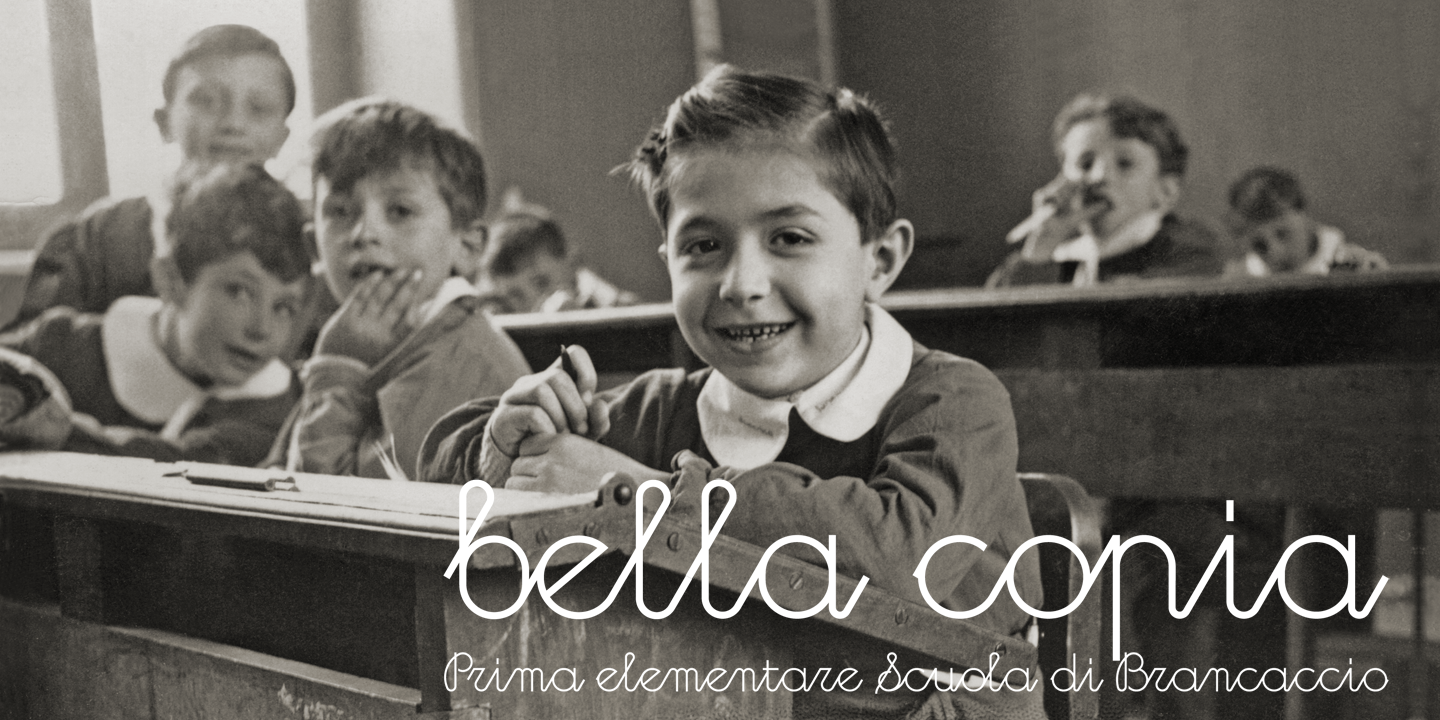
The Bella Copia Font is perfect for Italian restaurant branding, romantic wedding invitations, luxury fashion boutique logos, fine dining establishment menus, elegant spa signage, artisanal product packaging, high-end beauty salon graphics, sophisticated lifestyle magazines, and premium wine label design.
What makes the Bella Copia Font so exciting is its timeless Italian elegance that instantly captures the sophisticated beauty and romantic charm of classic European design. This enchanting typeface embodies the refined artistry and cultural sophistication that defines Italian aesthetic traditions, creating an immediate impression of luxury and romantic elegance. The font's bella character communicates the exquisite craftsmanship and passionate attention to detail that luxury Italian-inspired businesses need to attract discerning customers who appreciate authentic European sophistication and the romantic allure of Italian culture.
The Bella Copia Font family includes Regular weight with complete uppercase and lowercase alphabets, comprehensive numerical sets, essential punctuation marks, and elegant decorative elements that maintain the sophisticated Italian aesthetic throughout your luxury and romance-focused design projects.
Luxury Italian businesses and romantic service providers consistently select Bella Copia Font Free Download for projects that require authentic European appeal and sophisticated romantic communication. This exceptional typeface excels in environments where establishing connection to Italian cultural elegance and romantic sophistication is crucial for attracting clientele who value authentic luxury experiences and European refinement. The font's elegant character helps communicate the quality and cultural sophistication that Italian luxury enthusiasts expect from premium European-inspired products and services.
The distinctive qualities of Bella Copia Font reflect the rich traditions of Italian design where artistic beauty, romantic expression, and cultural refinement create timeless elegance and memorable experiences. Each character demonstrates the flowing grace and passionate artistry that characterizes Italian craftsmanship and romantic design traditions. The font's proportions and spacing create perfect harmony between Italian sophistication and contemporary accessibility that modern luxury businesses require for effective premium market positioning and romantic appeal.
Contemporary luxury enterprises appreciate how Bella Copia Font communicates Italian authenticity and romantic elegance. Whether designing materials for fine Italian dining establishments, creating branding for luxury European fashion, or developing marketing for romantic wedding services, this font delivers the sophisticated character that distinguishes authentic Italian luxury from generic romantic styling. The typeface works exceptionally well for businesses emphasizing artisanal craftsmanship, European heritage, and the timeless appeal of Italian romantic culture.
The versatility of Bella Copia Font extends across multiple luxury applications and romantic marketing initiatives. High-end jewelry stores utilize its elegant character for sophisticated product presentations and luxury brand communications. Italian wine importers choose it to communicate the authenticity and premium quality of their European selections. Romantic event planners rely on its beautiful appearance to create memorable invitations and elegant celebration materials for discerning couples.
Digital luxury platforms benefit from Bella Copia Font's optimized performance across various sophisticated applications and romantic communication channels. The font maintains its Italian elegance whether displayed on luxury websites, mobile romance apps, or high-resolution premium presentations. This technical excellence ensures consistent brand presentation across all luxury communication platforms and romantic engagement scenarios.
The emotional impact of Bella Copia Font resonates with audiences who appreciate Italian culture and seek romantic sophistication in their luxury experiences. The typeface serves as a visual celebration of Italian artistry and romantic beauty that helps luxury businesses build passionate relationships with customers who value authentic European elegance and romantic refinement. This connection to Italian sophistication and romantic charm makes it invaluable for establishing prestigious luxury brand identities.
Luxury marketing specialists and Italian design professionals recognize Bella Copia Font as an essential tool for authentic European branding. The font captures the essence of Italian elegance while making romantic sophistication accessible to contemporary luxury businesses who want to communicate their commitment to Italian craftsmanship, European refinement, and the timeless beauty of romantic Italian culture in today's competitive luxury marketplace.